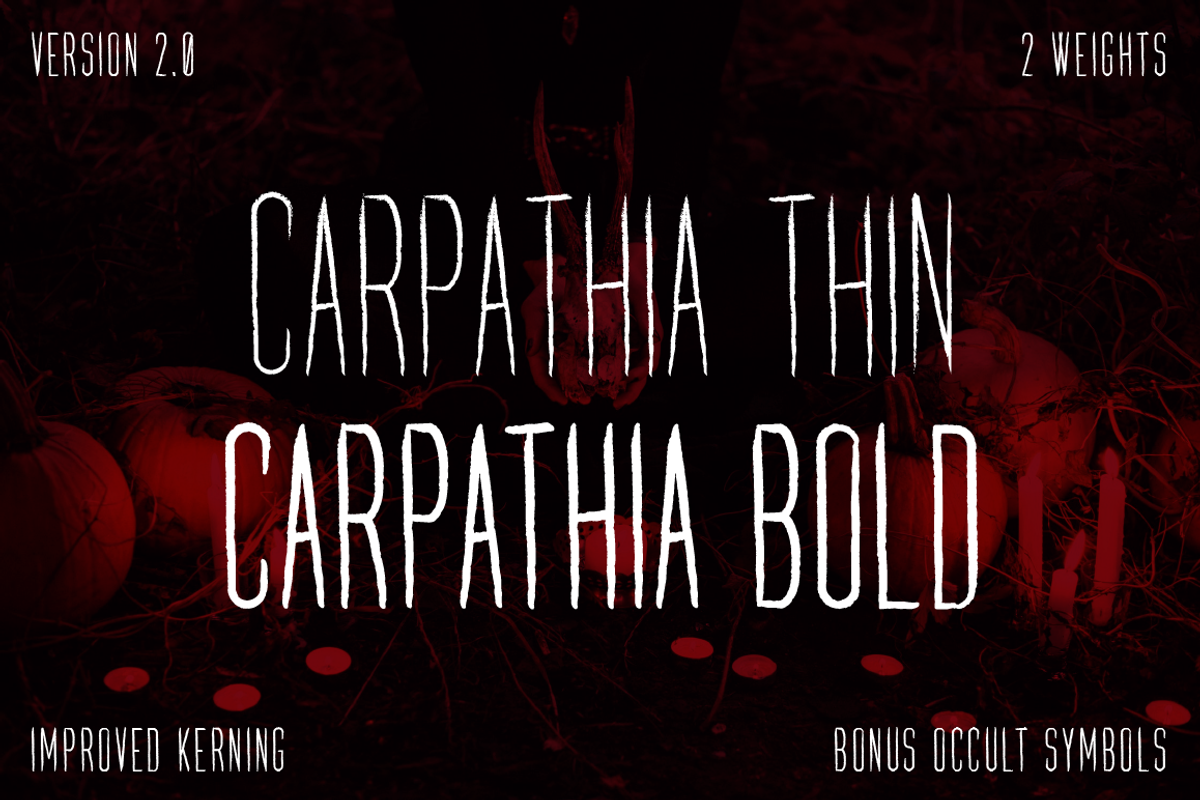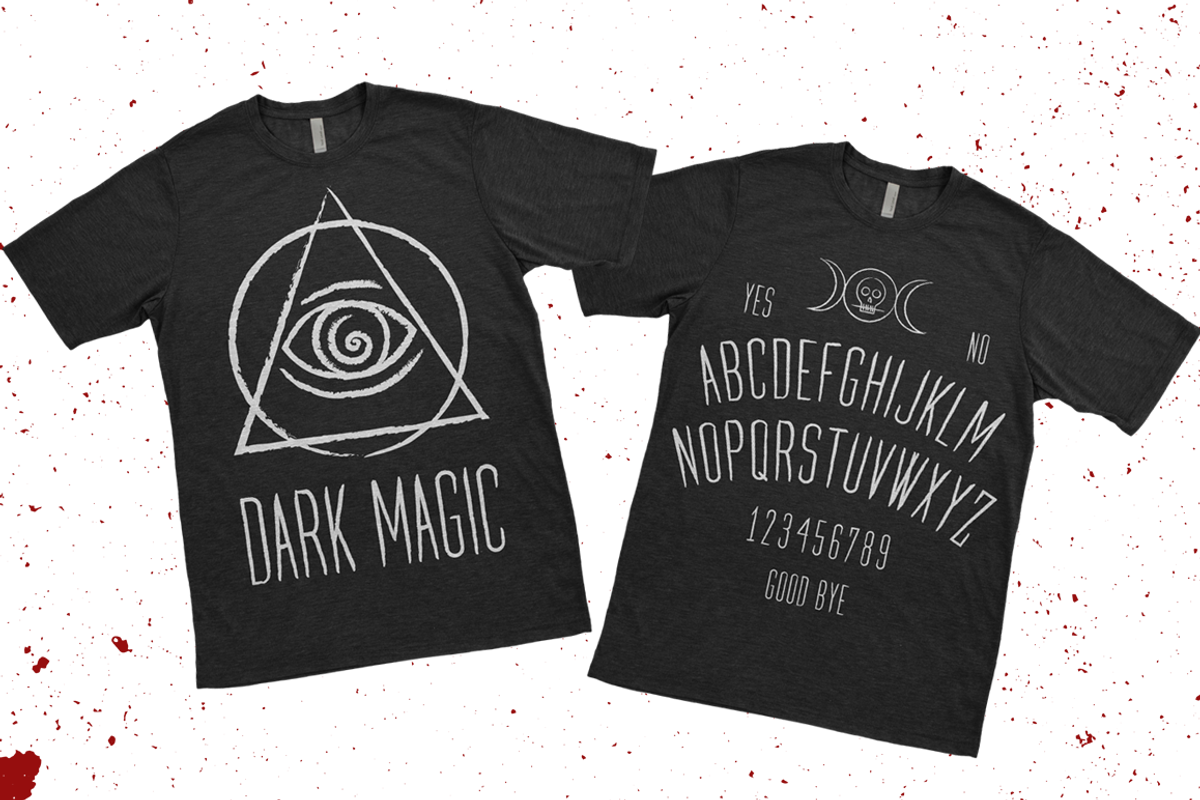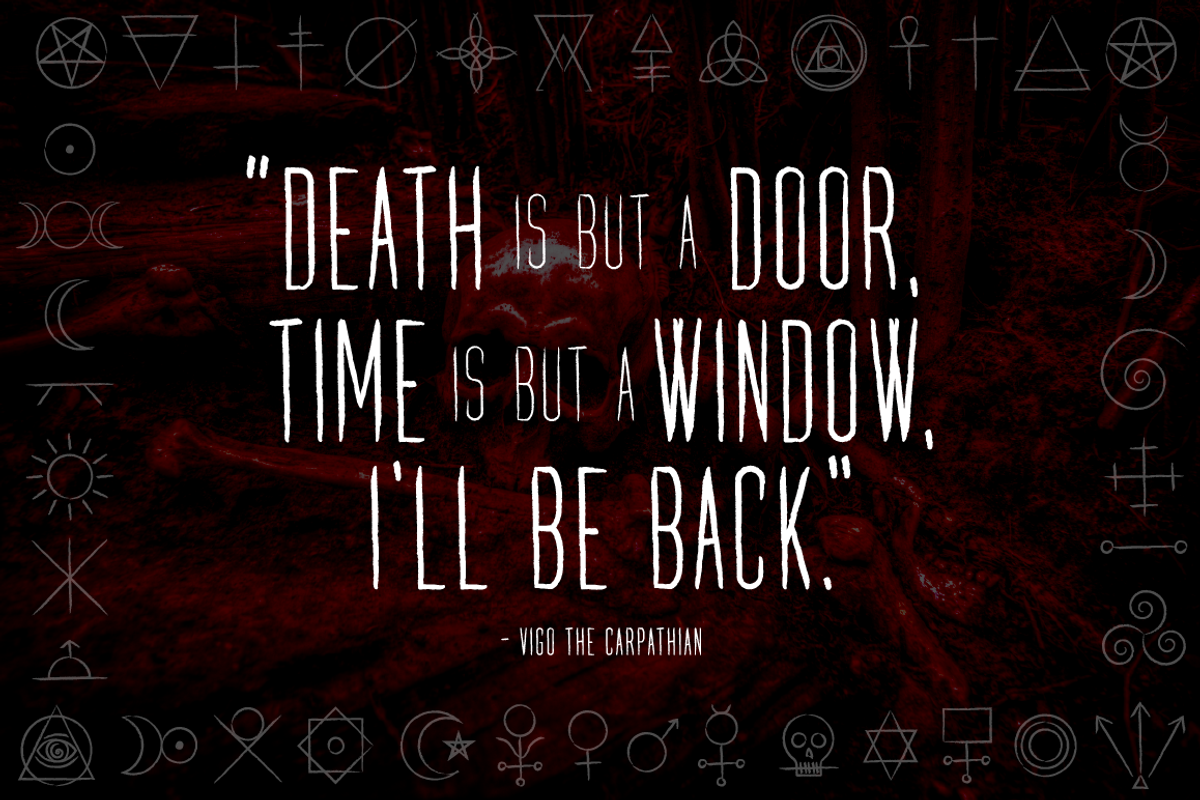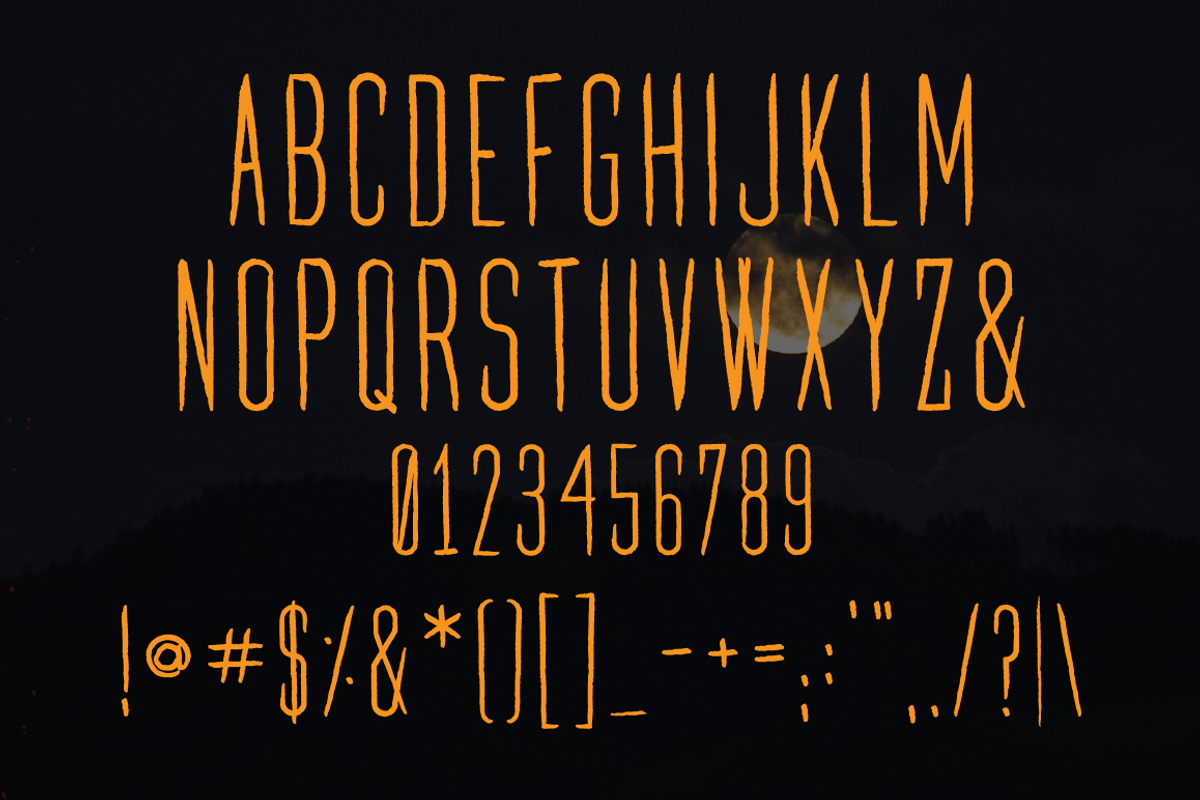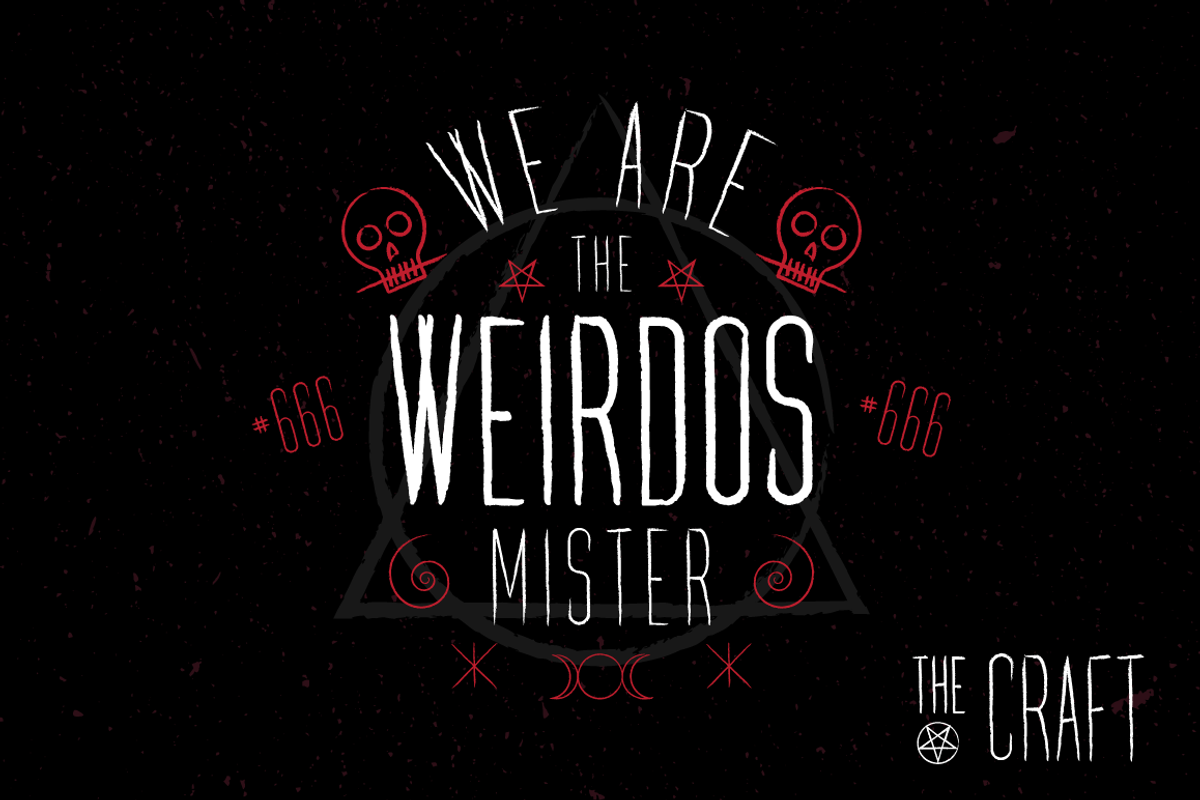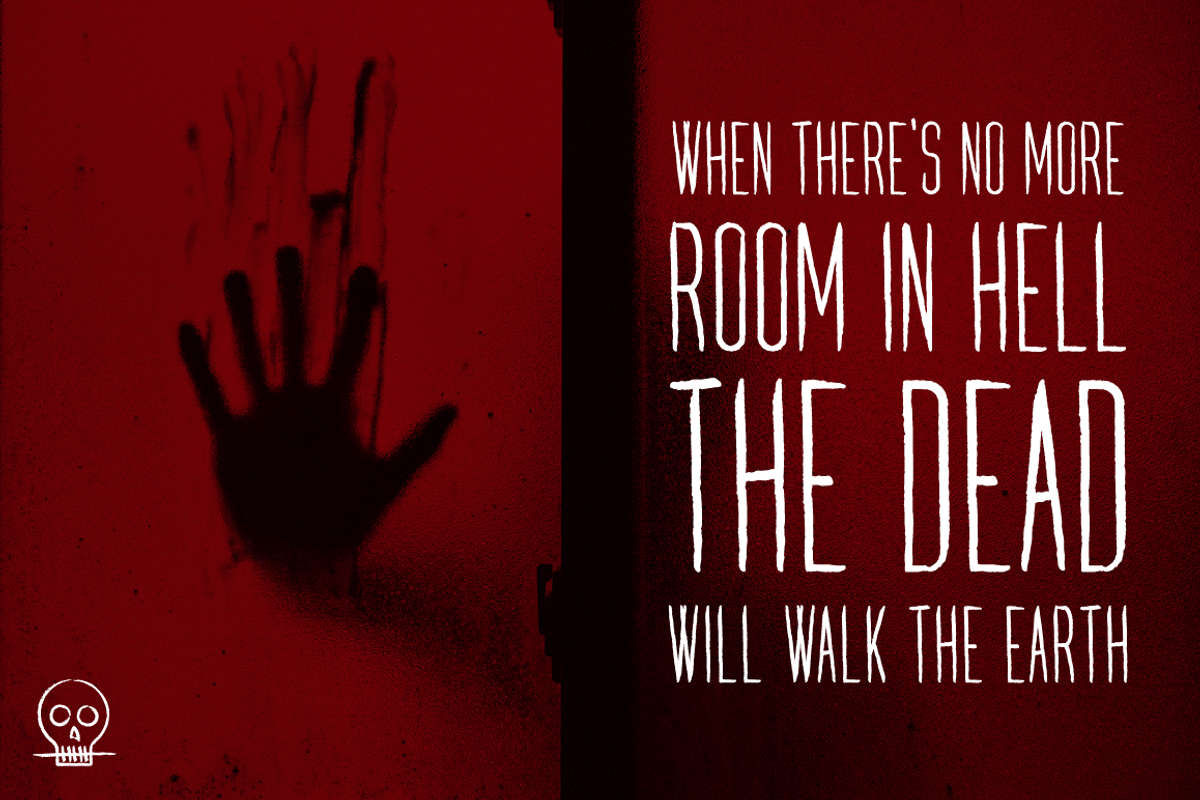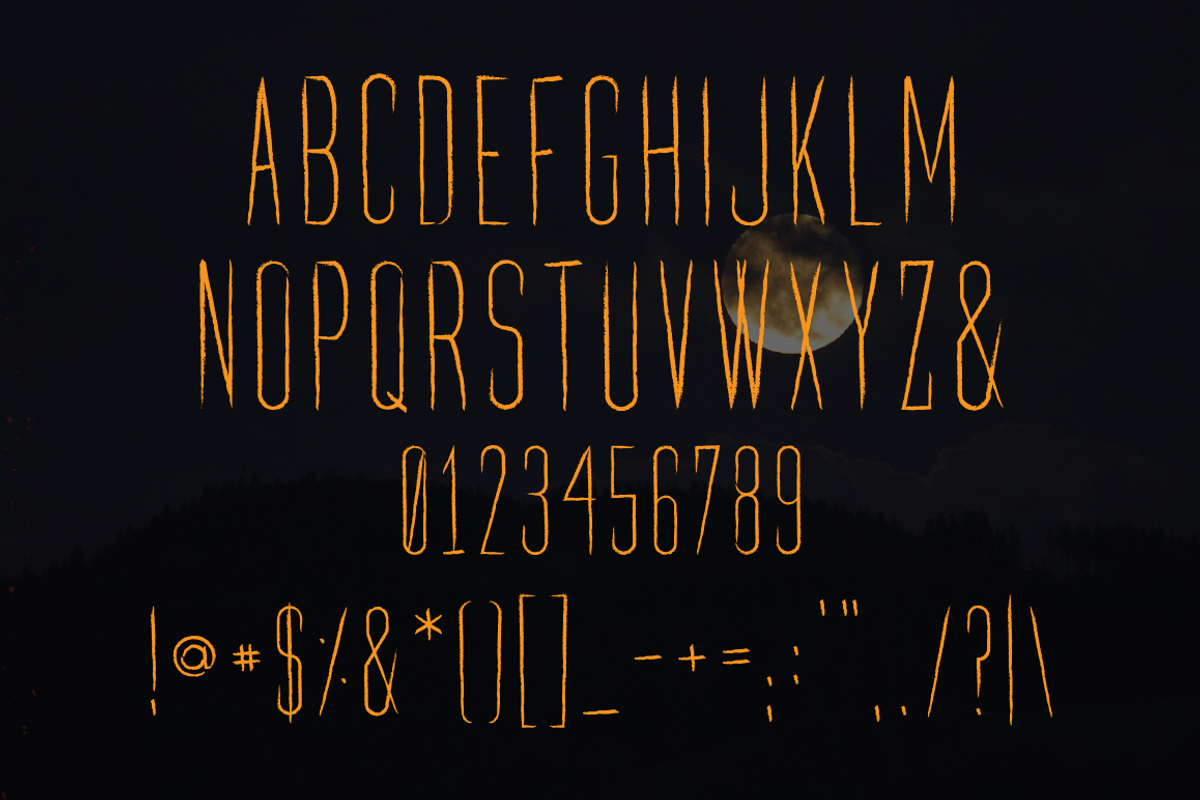
Carpathia Typeface + Extras
Now includes 2 weights: Bold & Thin
Carpathia is a horror display typeface inspired by witchcraft and sorcery. Its ultra condensed, carved styling evokes a spooky handmade feel that will add character to any project.
Carpathia features all caps, punctuation, and numerals. It is best used for headings, logos, quotes, gig posters/flyers, apparel design, invitations, greeting cards, packaging, album covers and more.